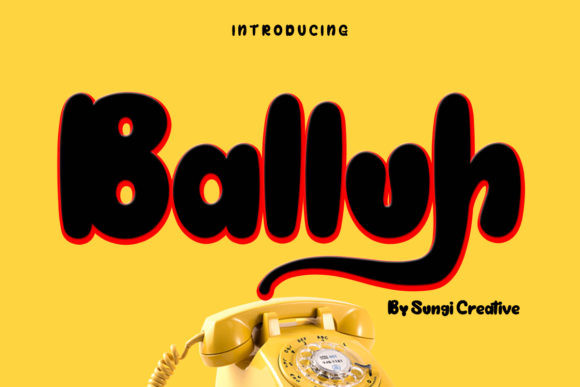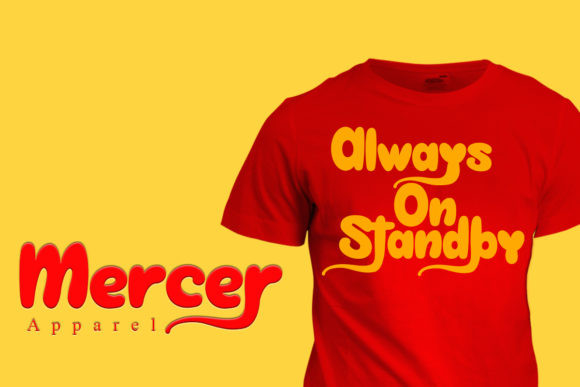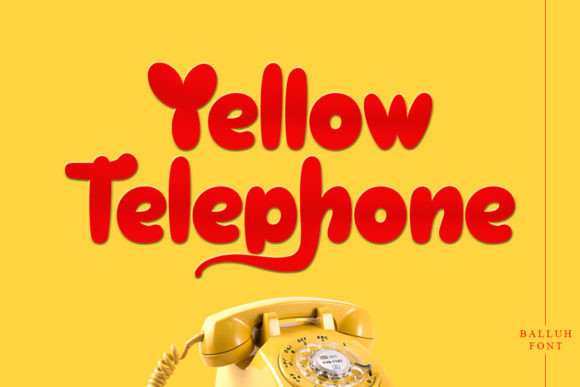
Balluh Font
Balluh is a fun and bubbly display font. This font reads as strong, confident, and dynamic and can add tons of nostalgic character to your designs.